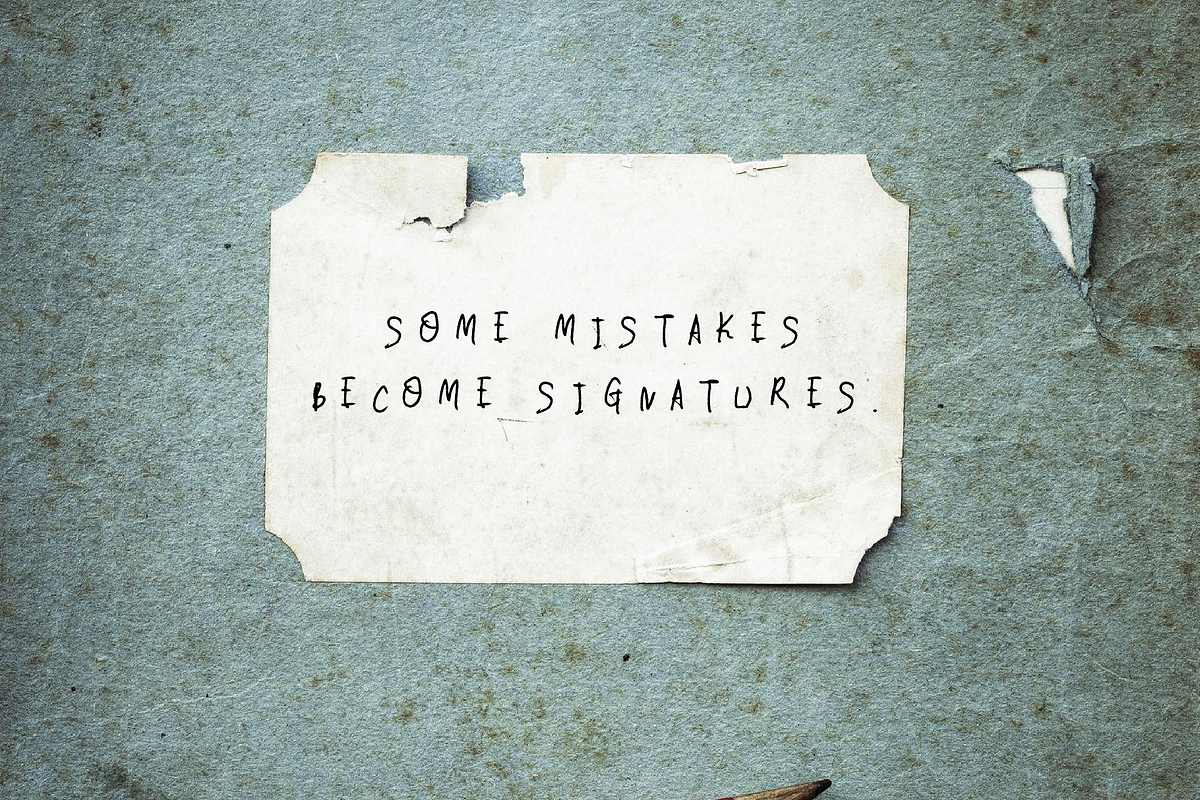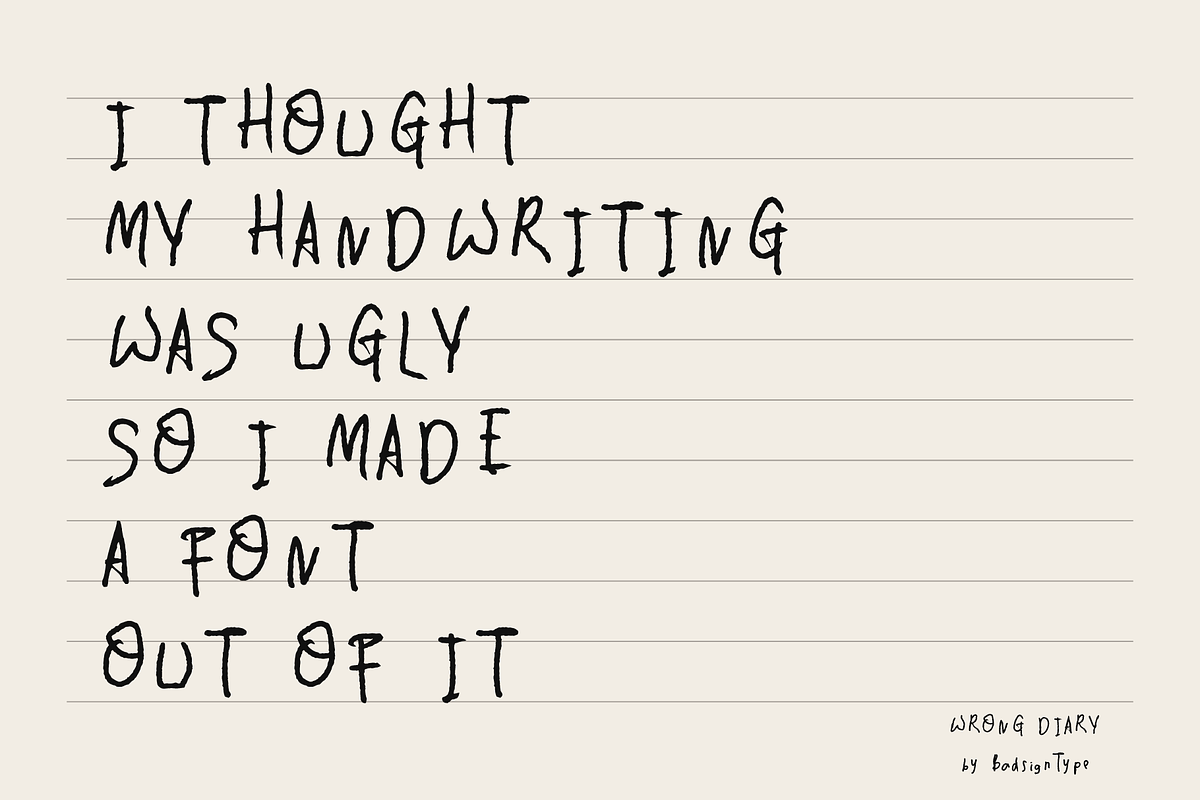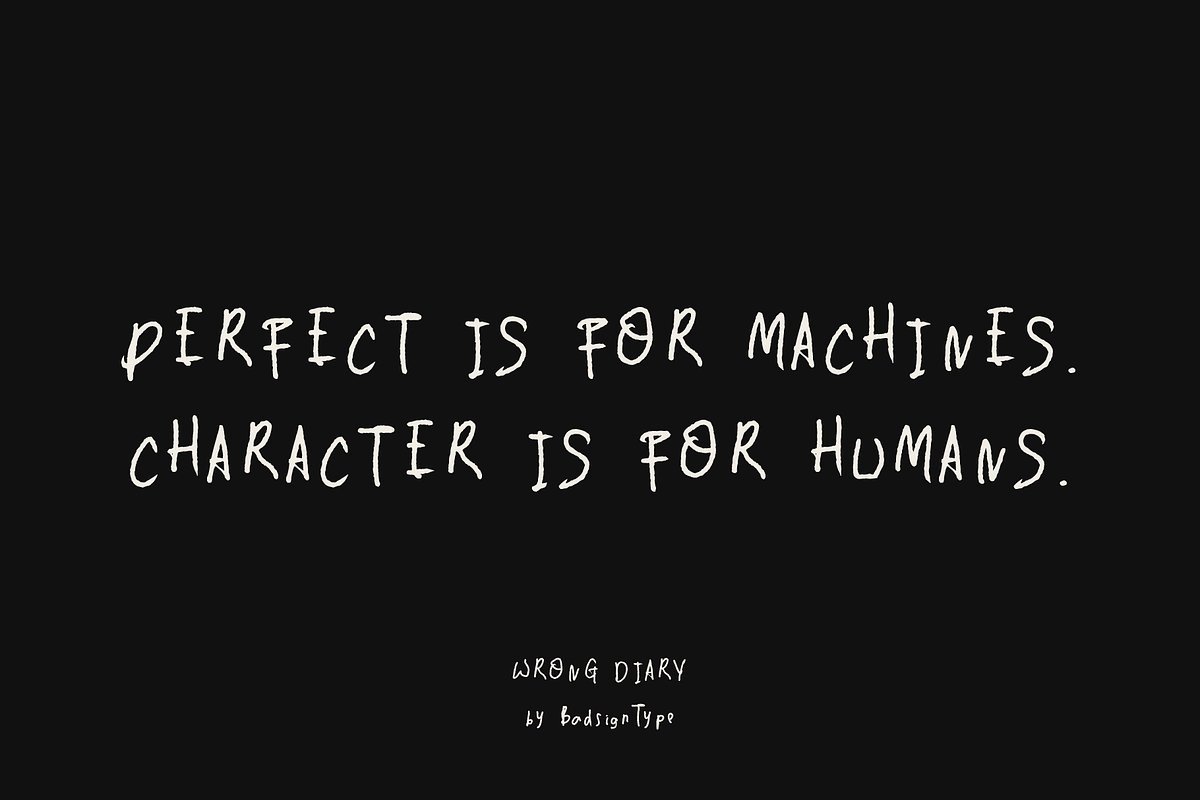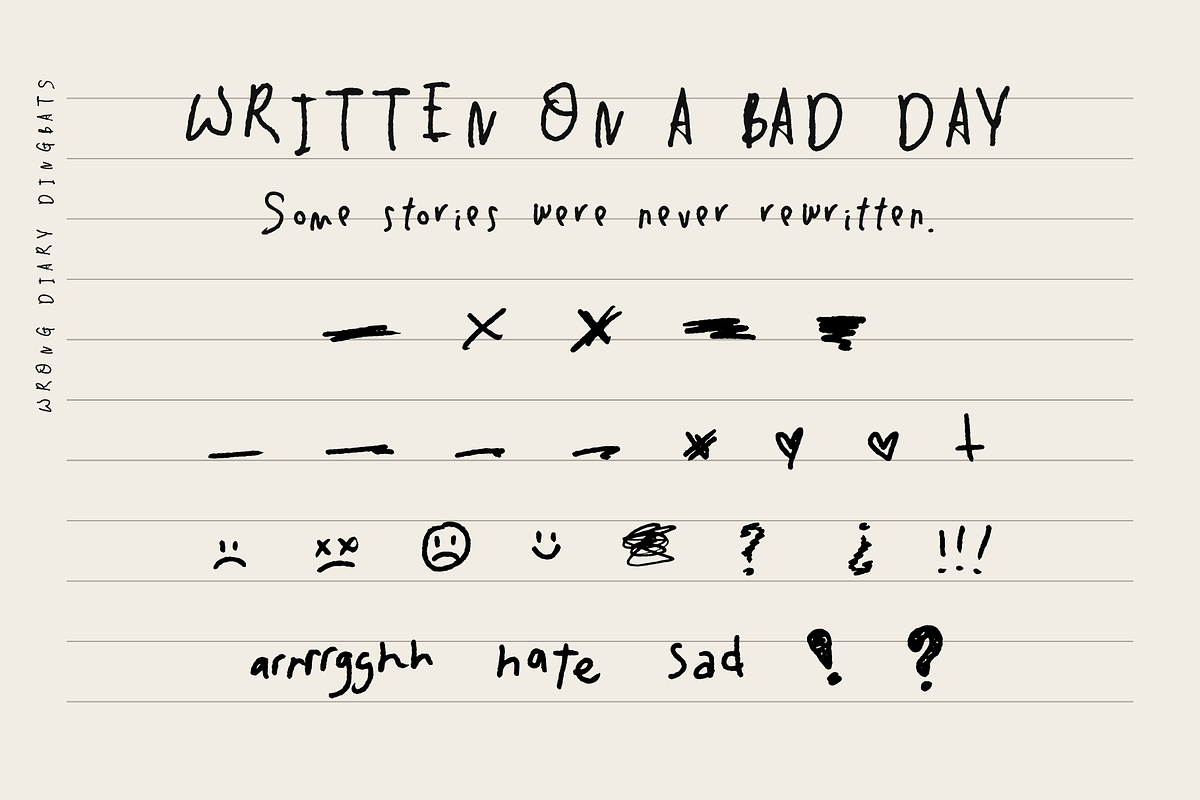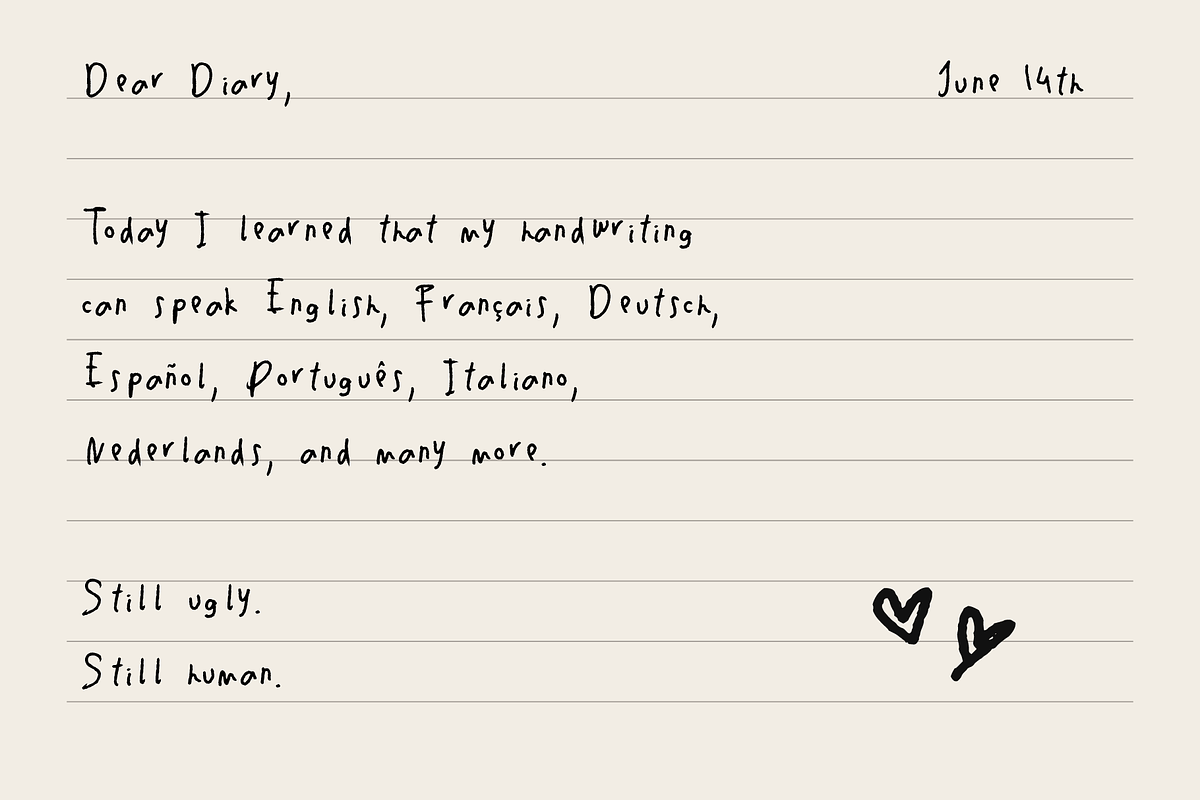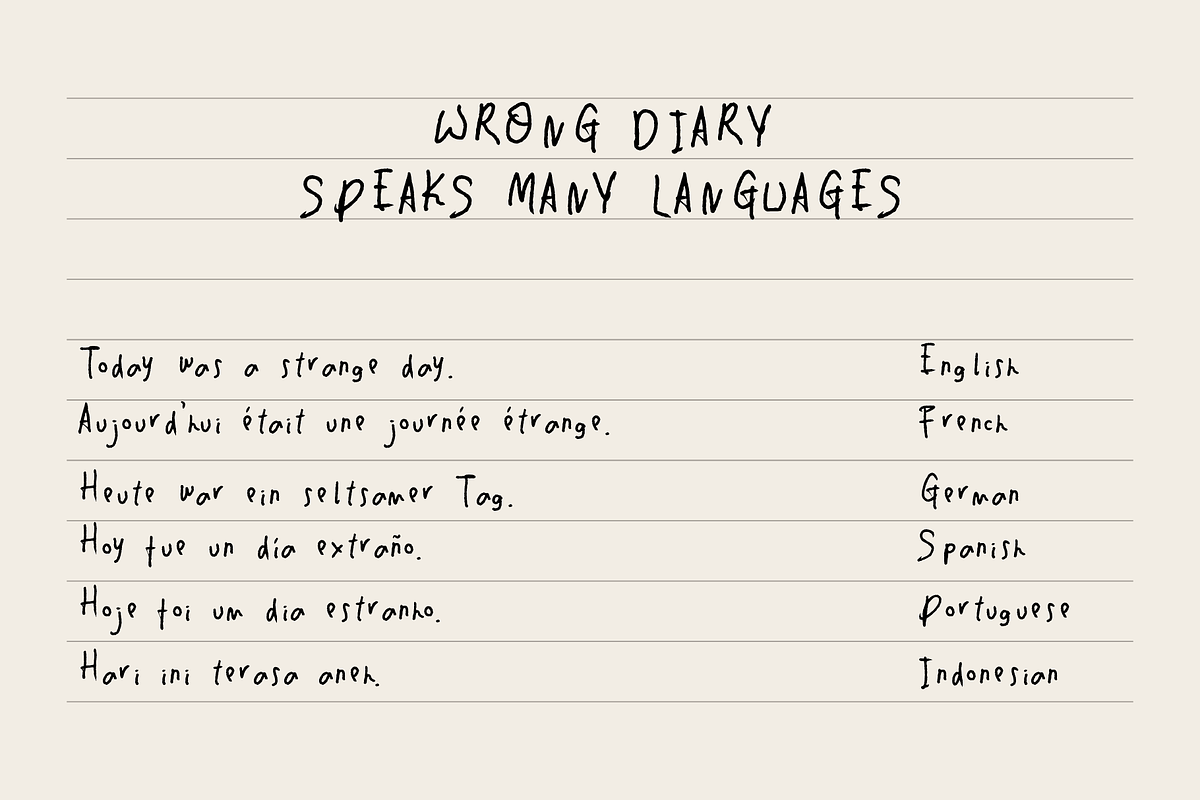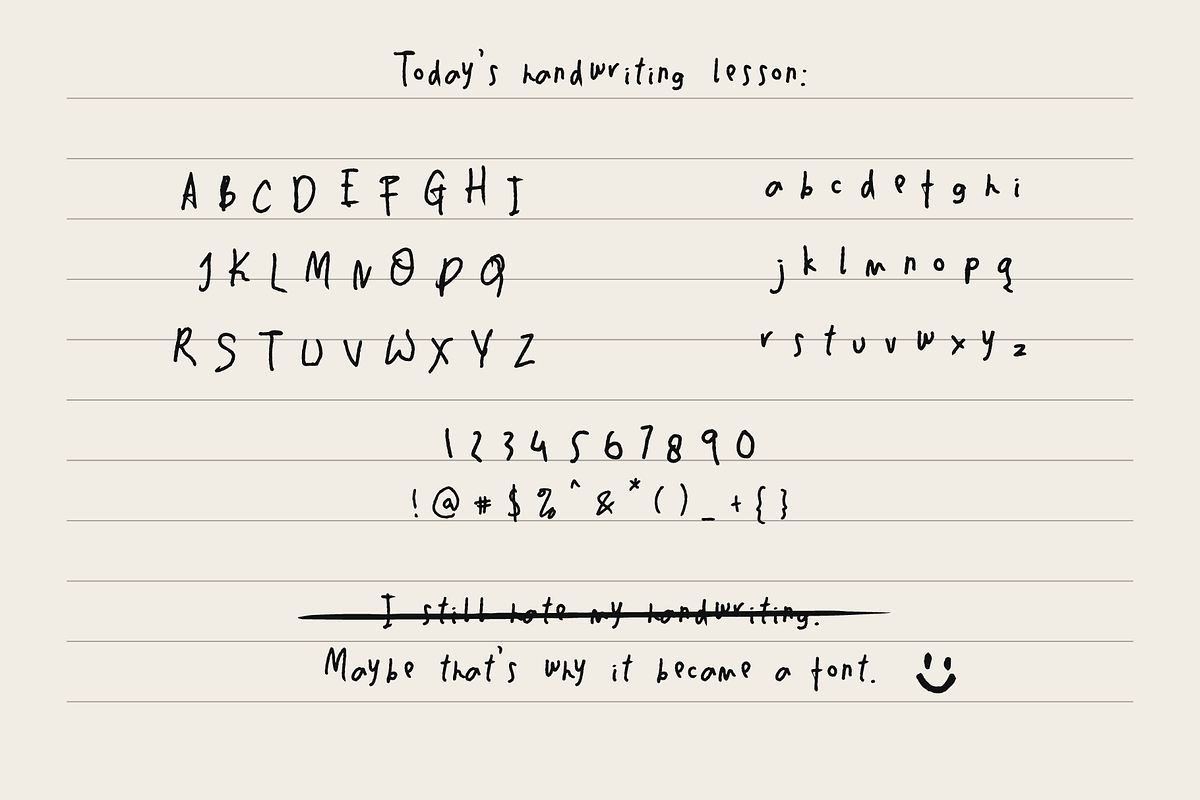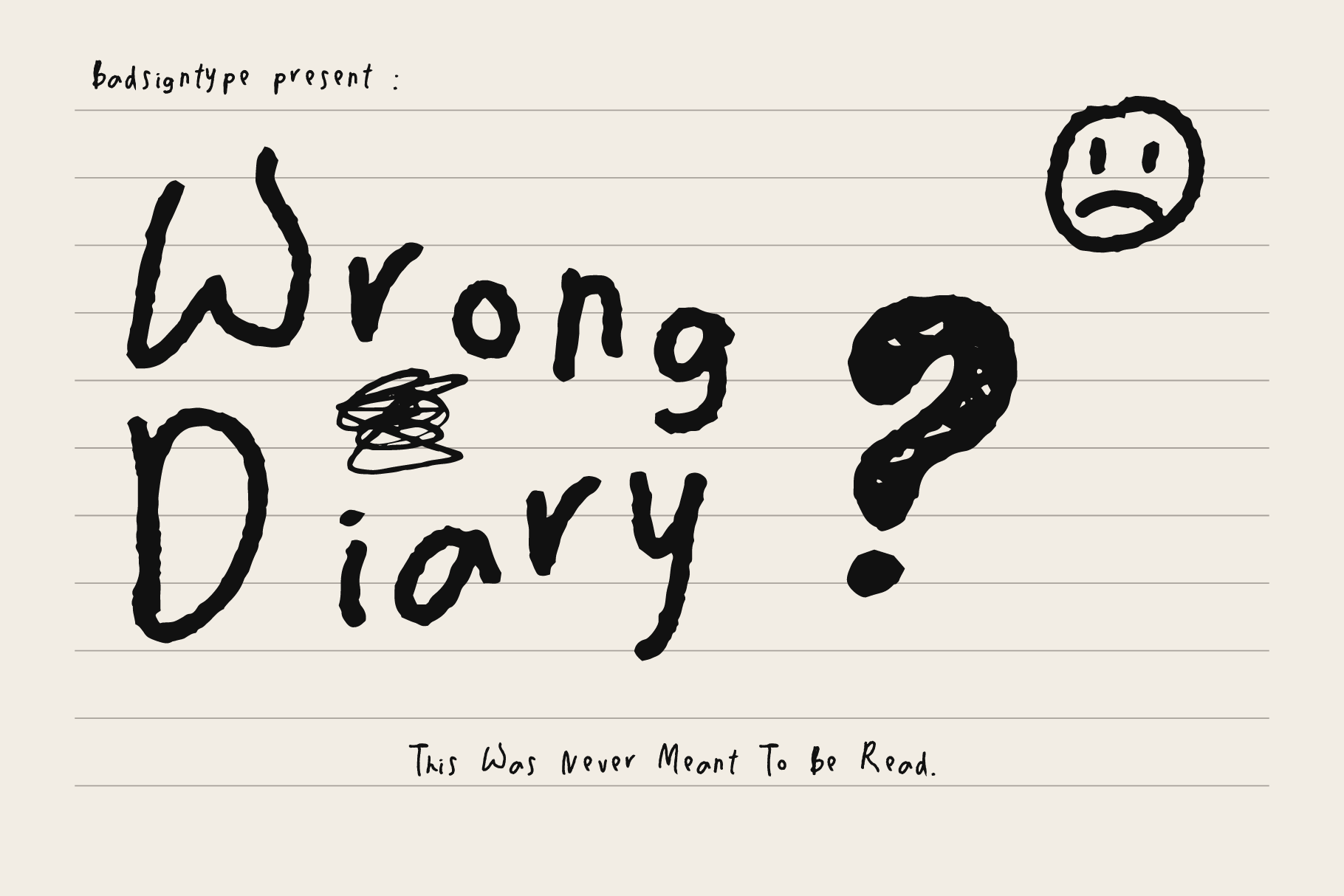
Wrong Diary – Raw Handwritten Font
Wrong Diary
Some thoughts were never meant to be perfect.
Wrong Diary is a raw handwritten font inspired by personal notebooks, crossed-out thoughts, unfinished sentences, and emotional diary entries.
Created from genuine handwriting, this font embraces imperfections instead of hiding them. Uneven letterforms, inconsistent rhythm, rough strokes, and expressive doodles give every word a human and personal feeling.
Wrong Diary is not designed to look polished.
It is designed to feel real.
Whether you're creating journal layouts, zines, album artwork, social media quotes, posters, packaging, or personal projects, Wrong Diary brings the honesty of handwritten notes directly into your work.
Handwritten Doodles & Dingbats
Emotional Symbols
Scribbles & Marks
Journal Inspired Elements
Perfect For :
Journals
Scrapbooks
Posters
Album Covers
Social Media Quotes
Zines
Personal Branding
Creative Projects
Included Dingbats
Wrong Diary comes with a collection of expressive doodles and emotional marks including:
Hearts
Cross Marks
Scribbles
Sad Faces
Emotive Symbols
Hand Drawn Accents
Journal Marks
Because not every feeling can be written with words.